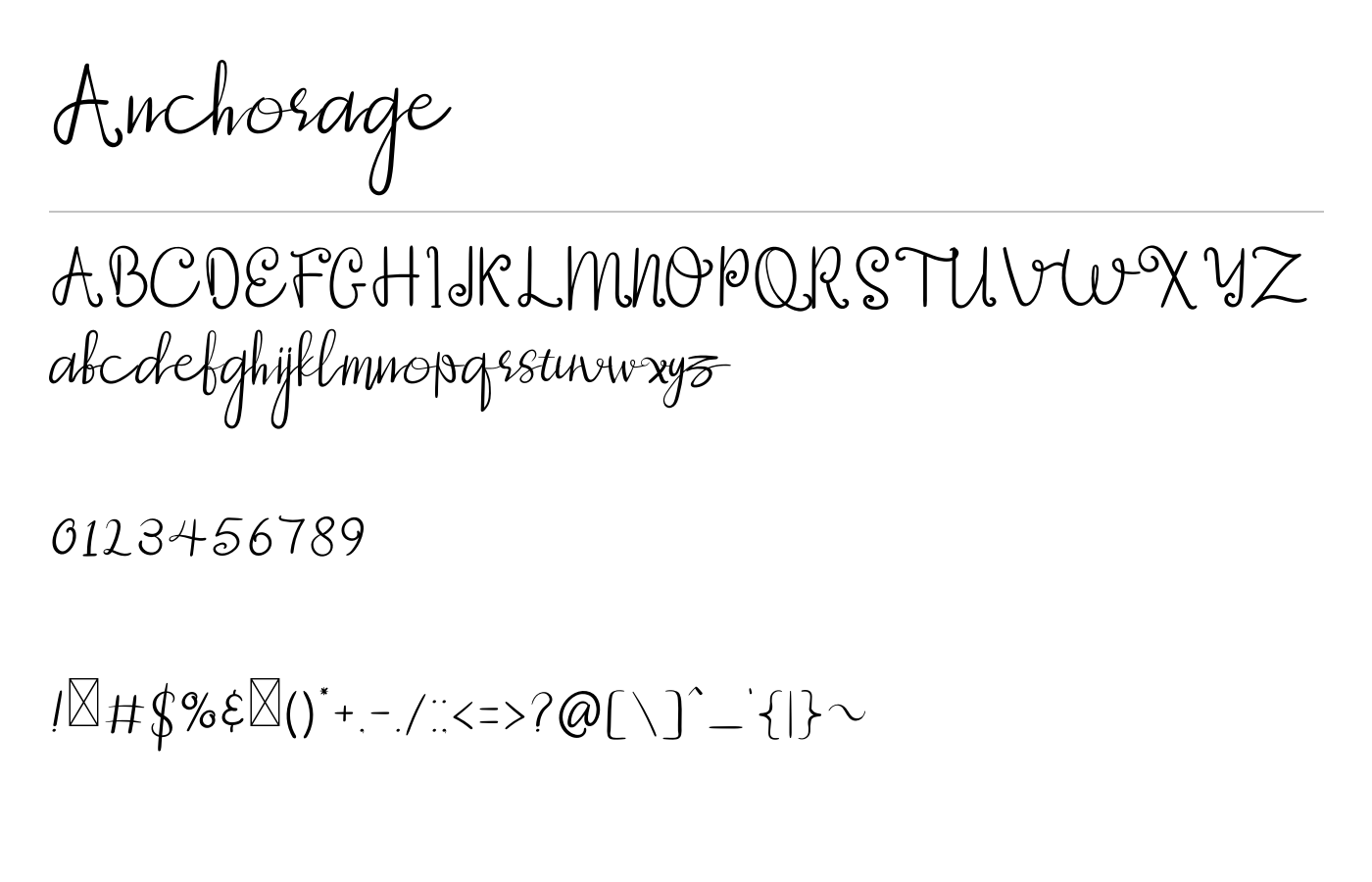
Anchorage is a delicate, hand-drawn script font with a playful and elegant character. Its slender strokes and whimsical curls give it a charming, casual feel that works beautifully for creative branding, invitations, and feminine design projects. This font’s unique personality shines best in headlines and decorative text where a personal, handwritten touch is desired.
Anchorage Font